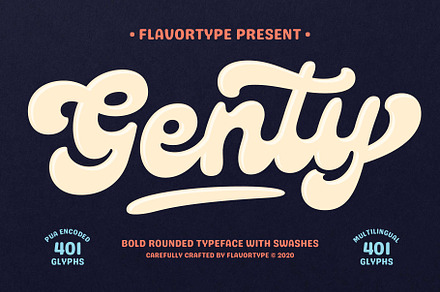
Genty – Bold Rounded Typeface
A bold rounded typeface where every terminal is fully radiused, giving a soft friendly weight without losing impact.
Rounding terminals reduces perceived aggression considerably, which is why the technique is so common in brands aimed at families and children.
- Fully radiused terminals
- Multilingual support
Where it works
- Childrens and family branding
- Food and beverage packaging
- App and interface headlines
- Social and campaign graphics